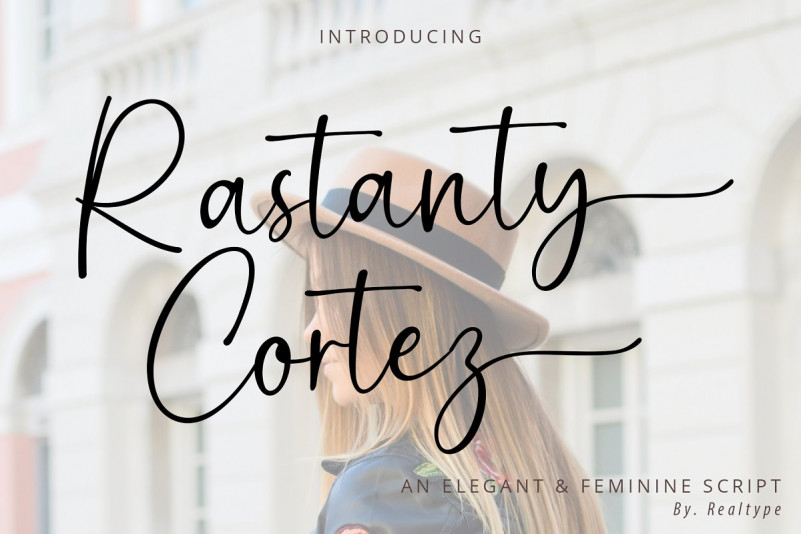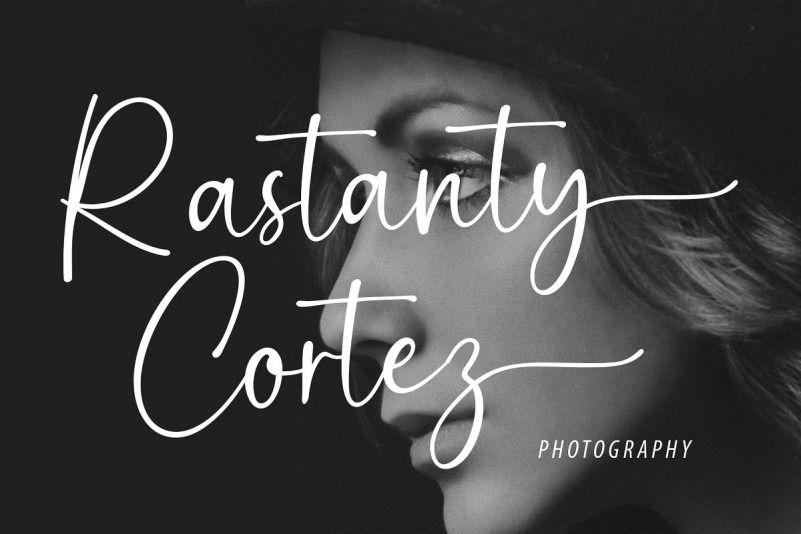
Rastanty Cortez Font
Rastanty Cortez Fonts consist of sophisticated, elegant, classy and modern handwriting. With a little dirty curvature and made from the typography of new trends, This font will give you a design that looks fresh and modern.
Rastanty Cortez, with a soft style and has an elegant nuances, classy and natural. Perfect to get a more charismatic impression or unique touch to your projects and branding, greeting cards, wedding, banner, name card, lettering, fonts pairing, etc.